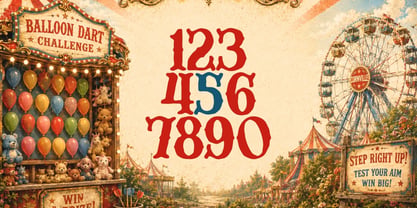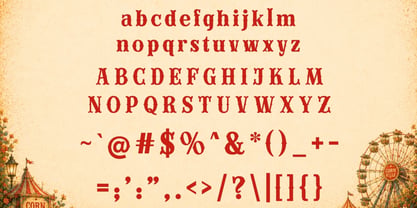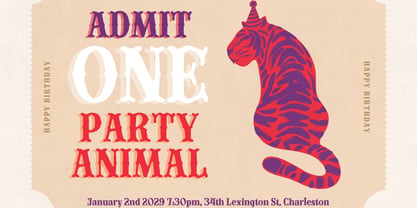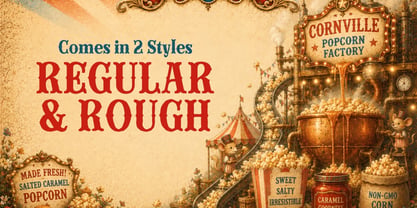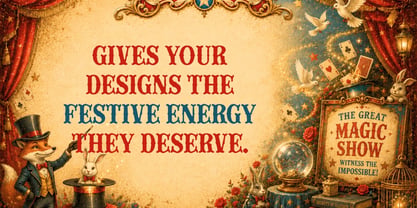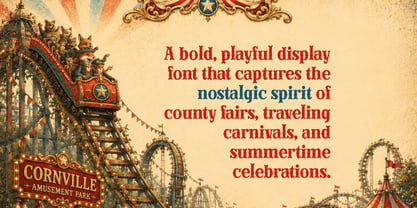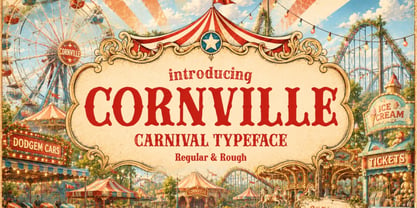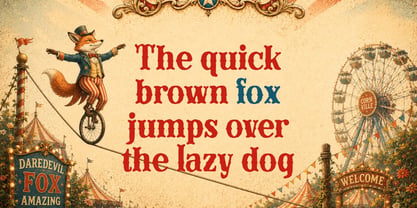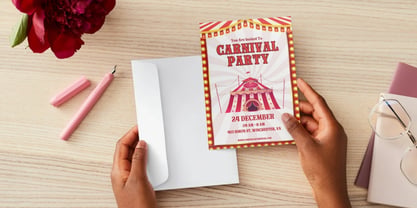
Cornville
Die Schriftfamilie Cornville wurde von Igor Ovsyannykov entworfen und von Hipfonts veröffentlicht. Cornville enthält 1 Stile. Mehr über diese Familie
Step right up and meet Cornville, a bold and playful display font inspired by the nostalgic magic of county fairs, traveling carnivals, and warm summer celebrations. With two expressive styles packed into one download, Cornville gives your designs the festive energy they deserve.
Cornville Regular — Clean, confident letterforms with a polished carnival spirit, perfect for invitations, branding, and logos.
Cornville Rough — The same lovable personality with worn, sun-baked texture that brings an authentic, vintage handmade feel to every headline.
Whether you're designing birthday party invitations, event posters, product labels, or fair signage, Cornville brings the big-top excitement wherever it lands.